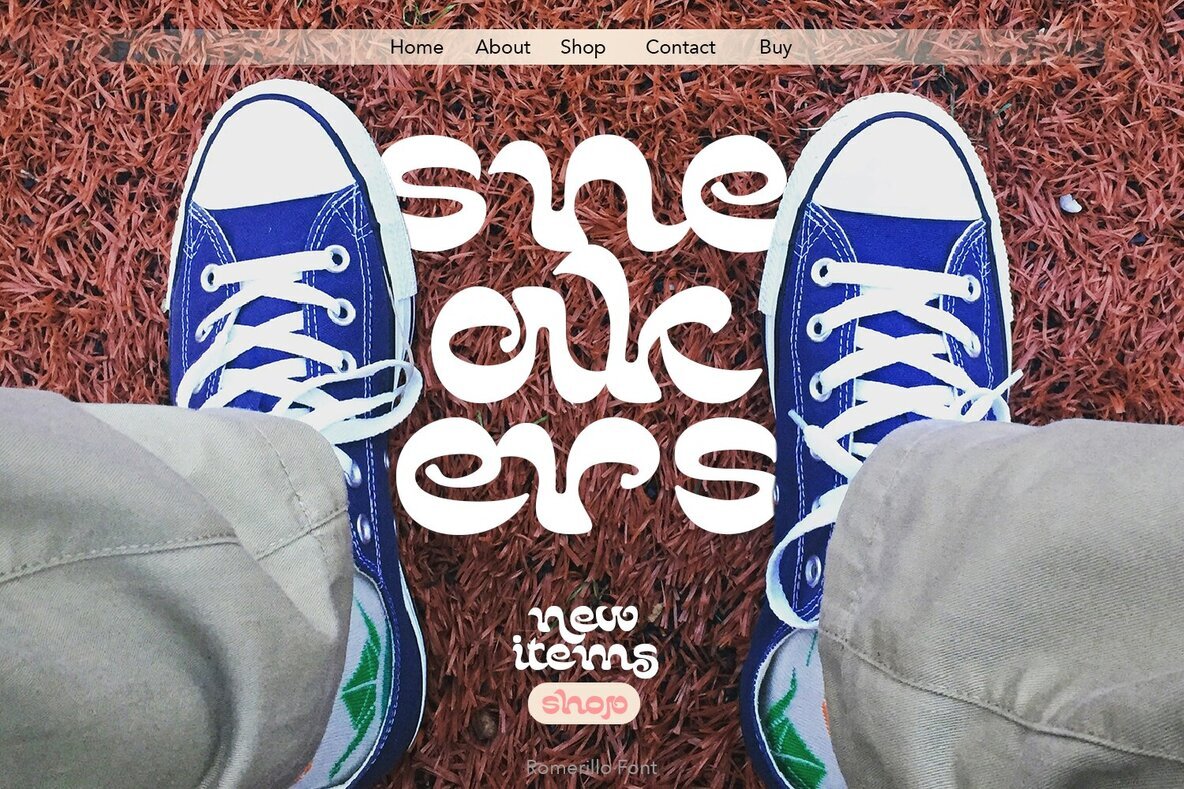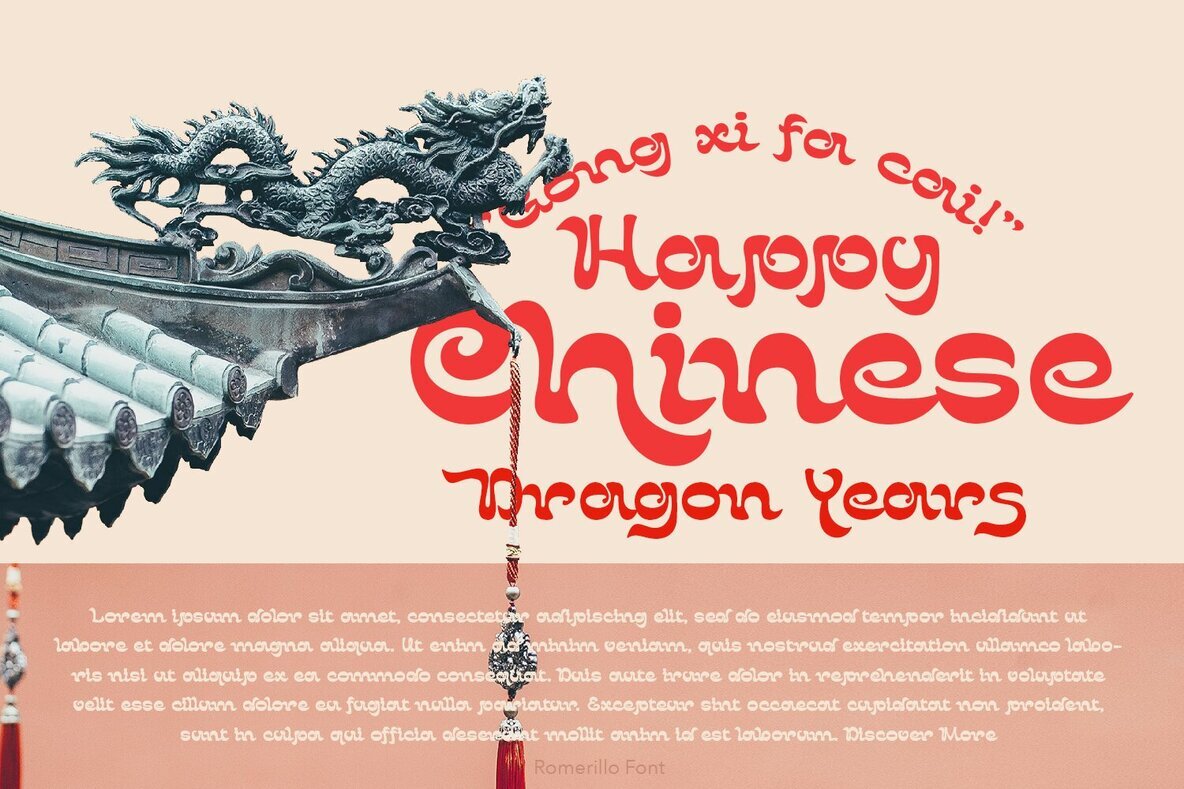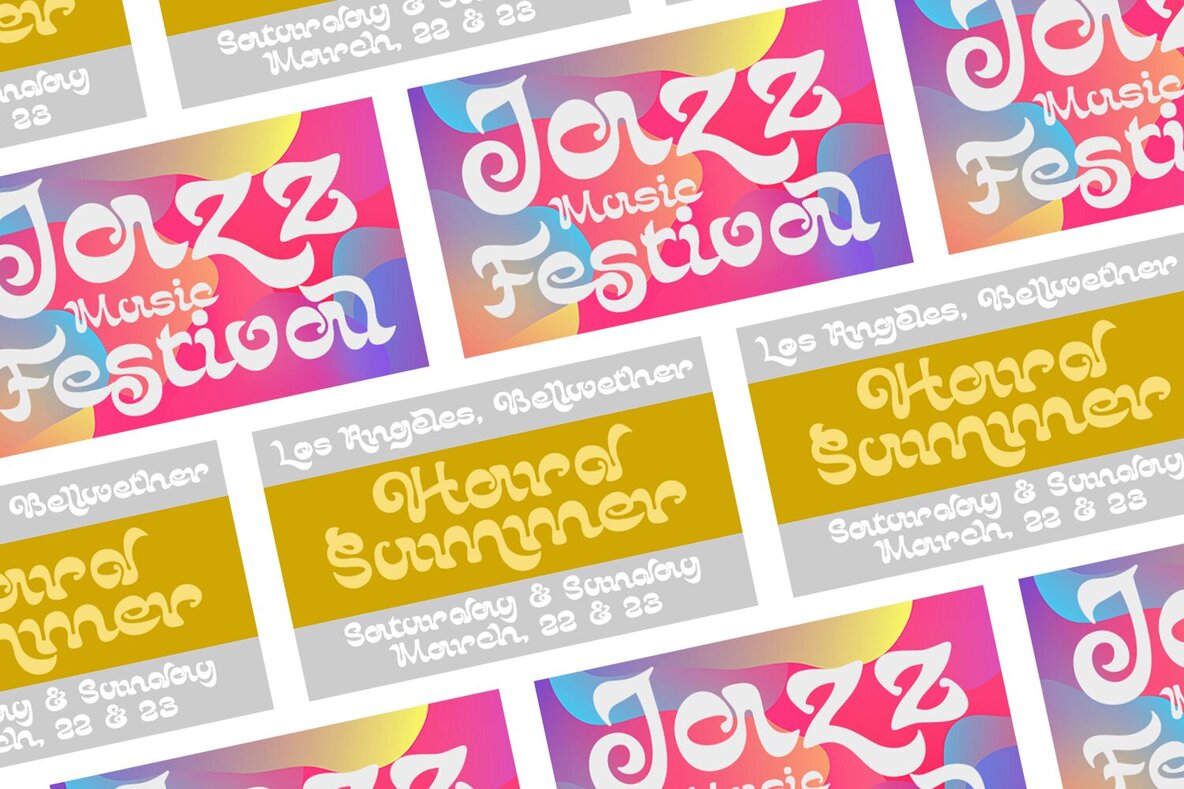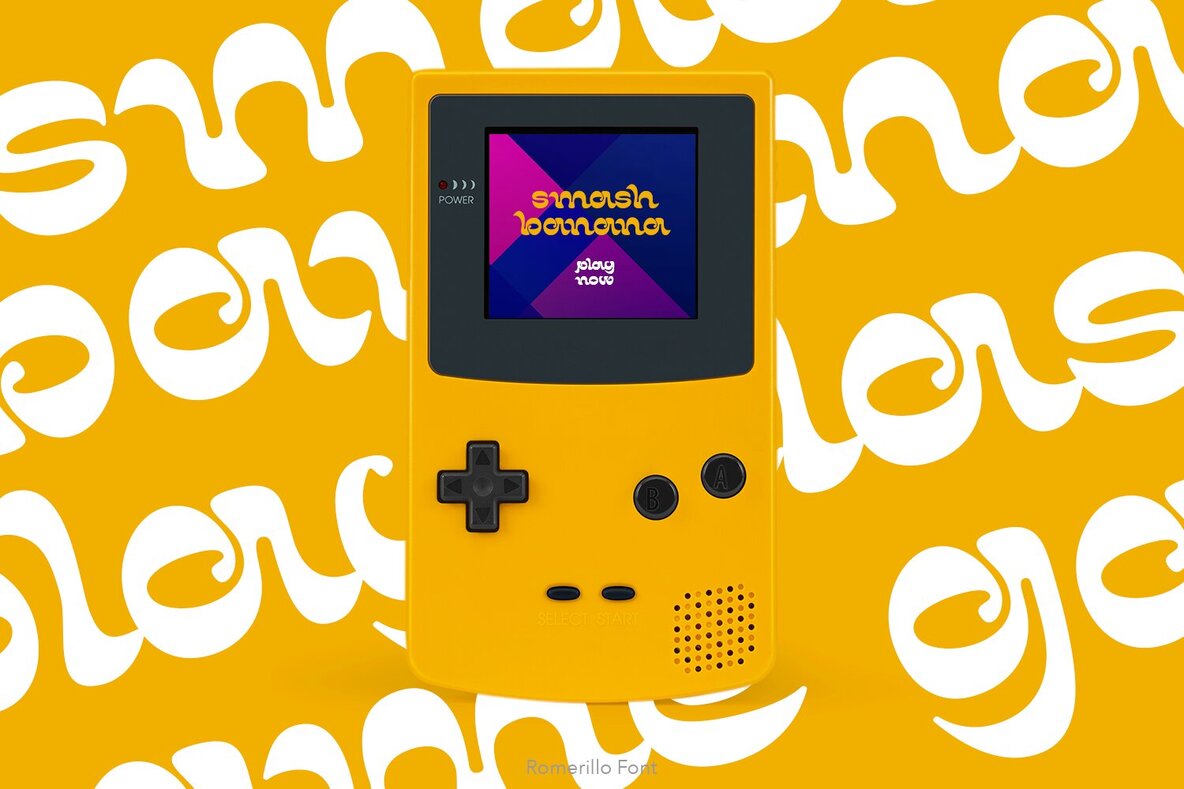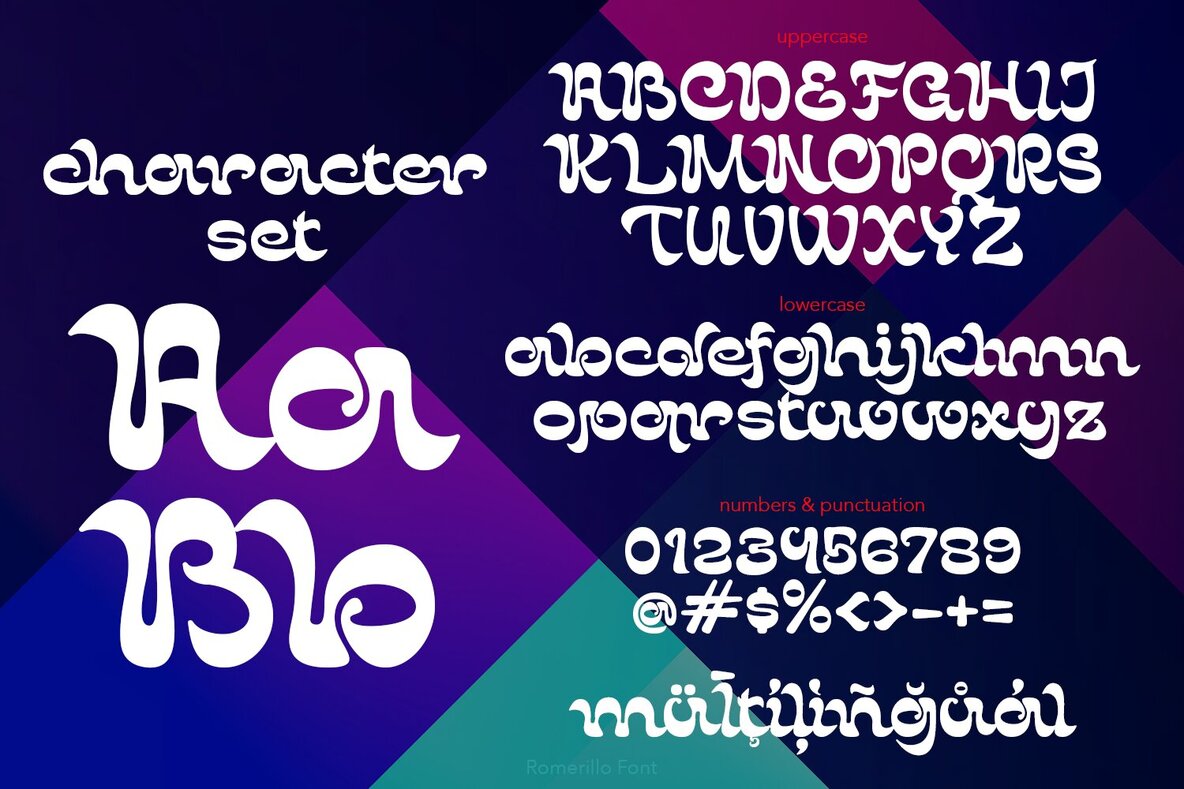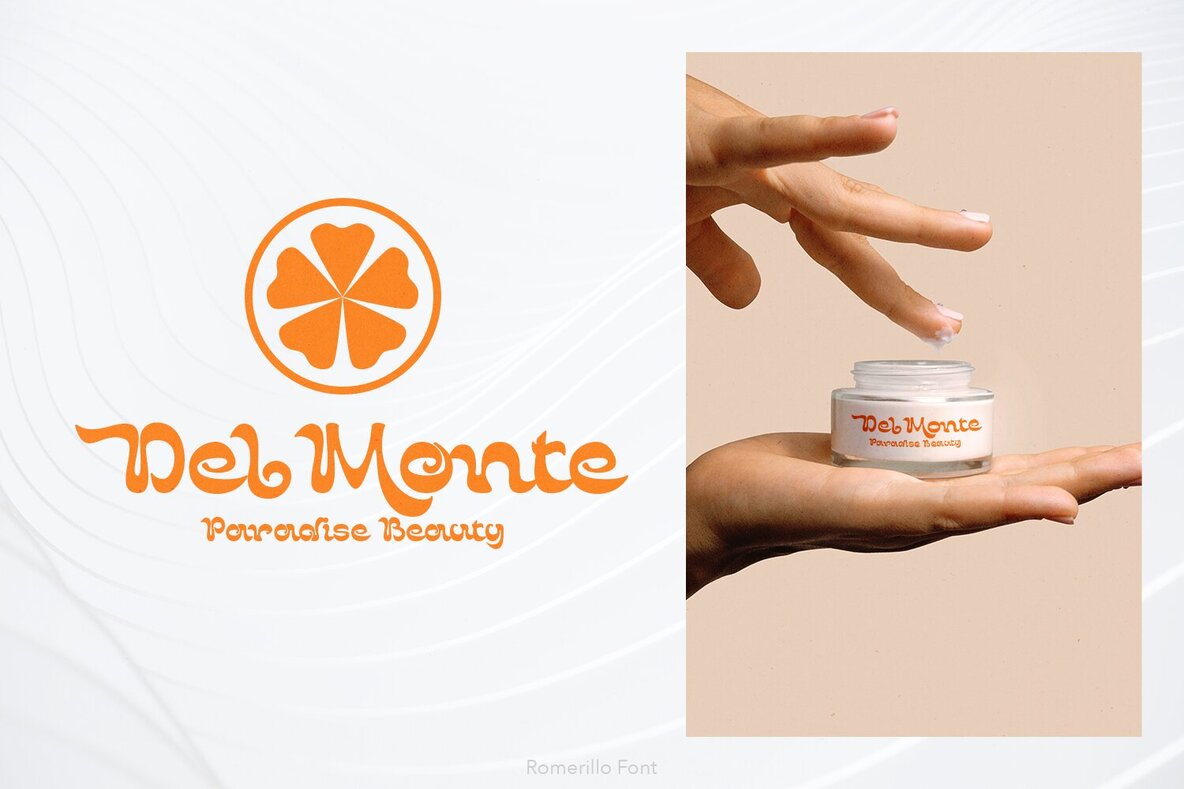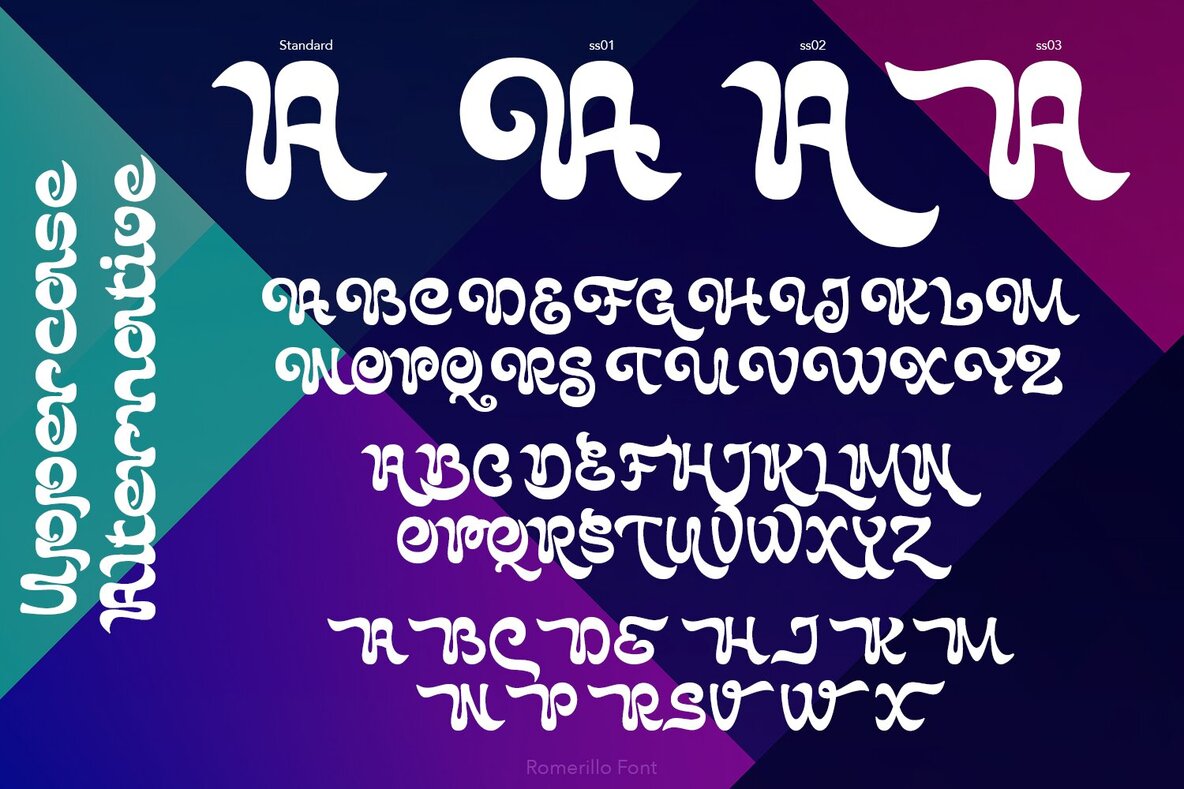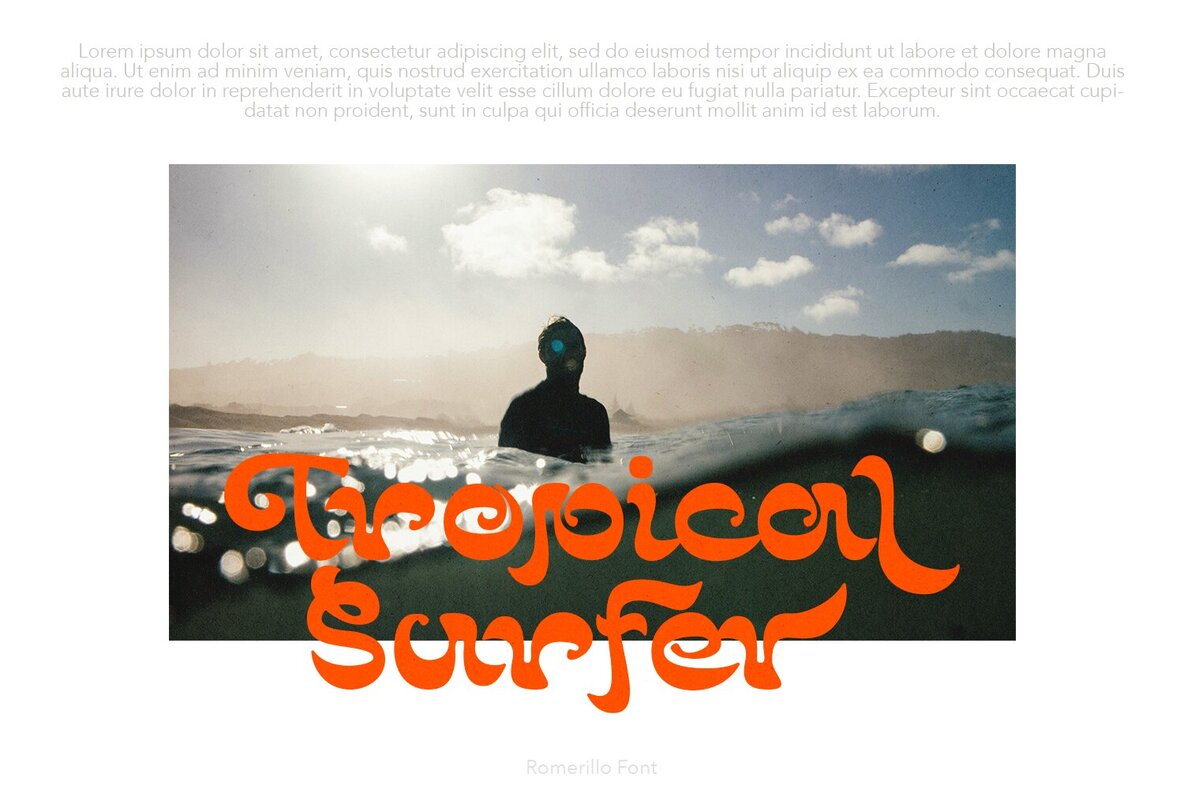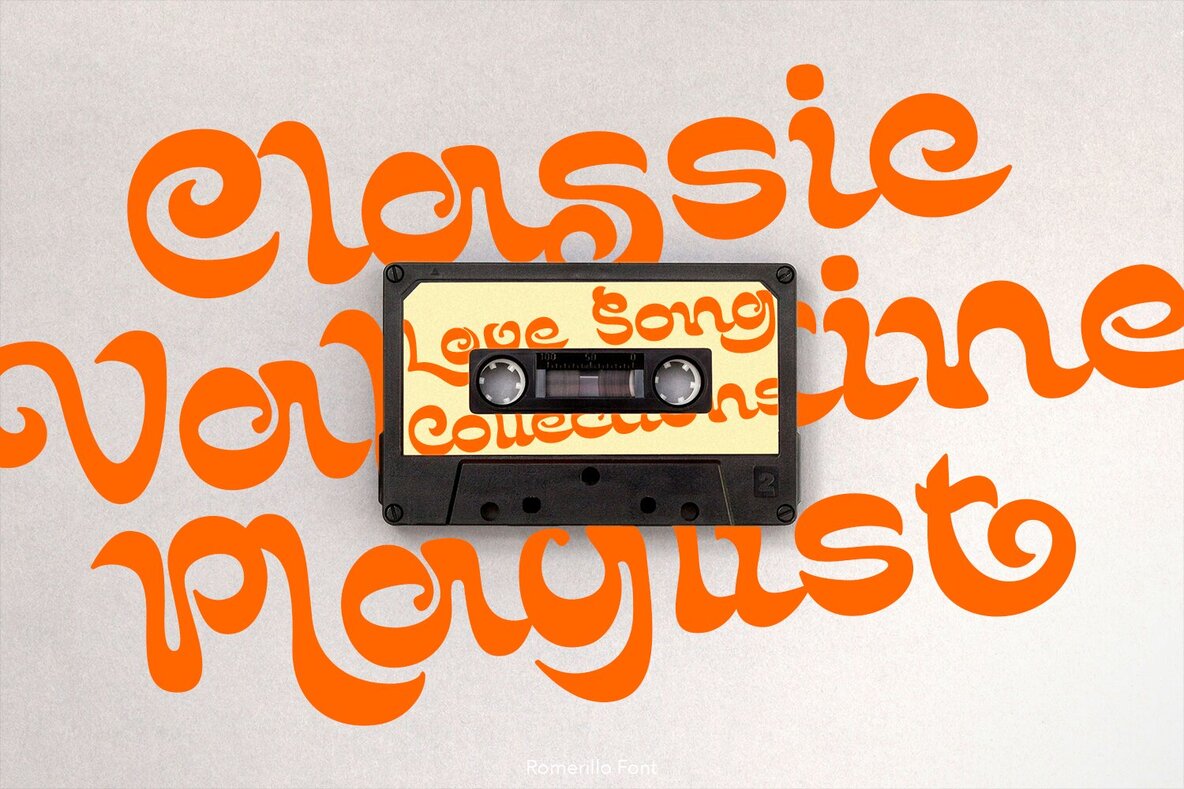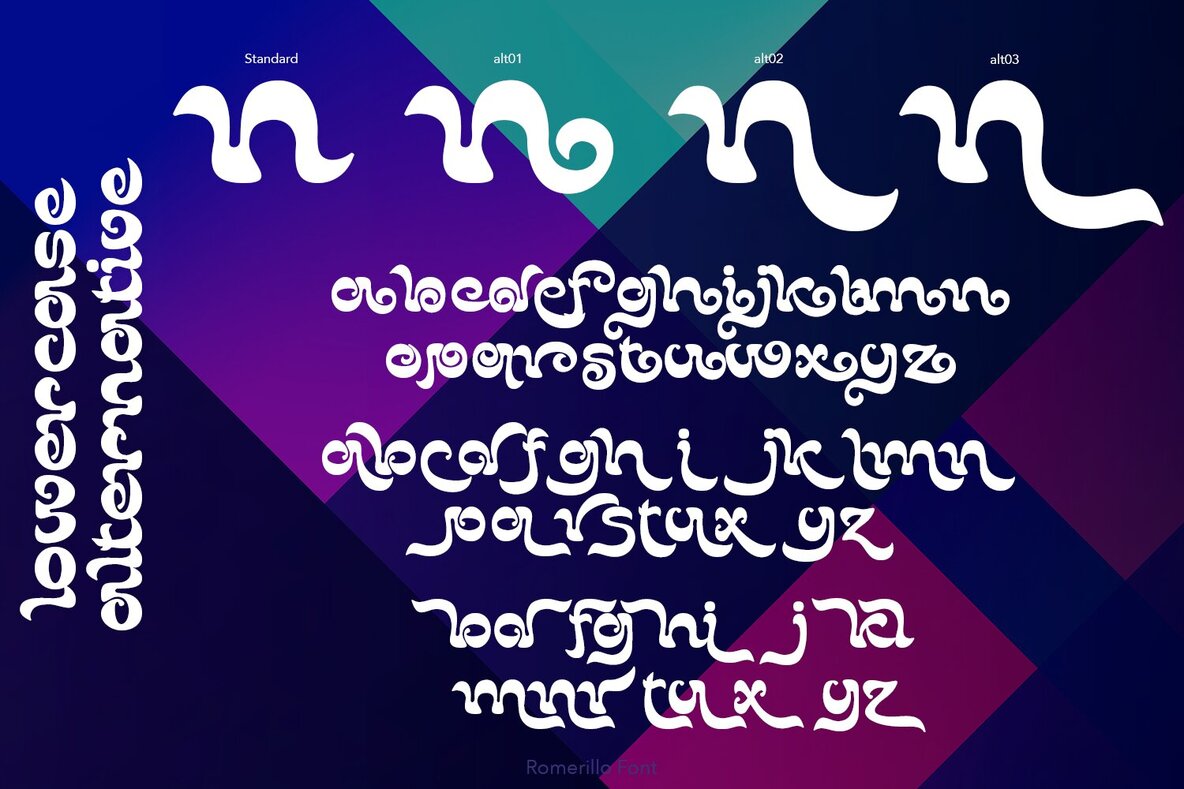
Romerillo is a retro-inspired bold font designed to infuse your creative projects with a nostalgic touch. This typeface, influenced by the bespoke custom typography of the 1960s and 1970s, is ideal for logos, websites, social media quotes, wedding branding, and more. Romerillo's distinct style captures the vintage aesthetic, making it a great choice for projects that seek a classic yet dynamic feel.
This font includes ligatures and special alternative glyphs, offering versatility in layout and composition. Romerillo allows designers to explore a variety of typographic expressions, providing a rich toolkit for creating unique visuals. Whether you're crafting standout headers or subtle text details, this font adds a characterful edge to your designs.